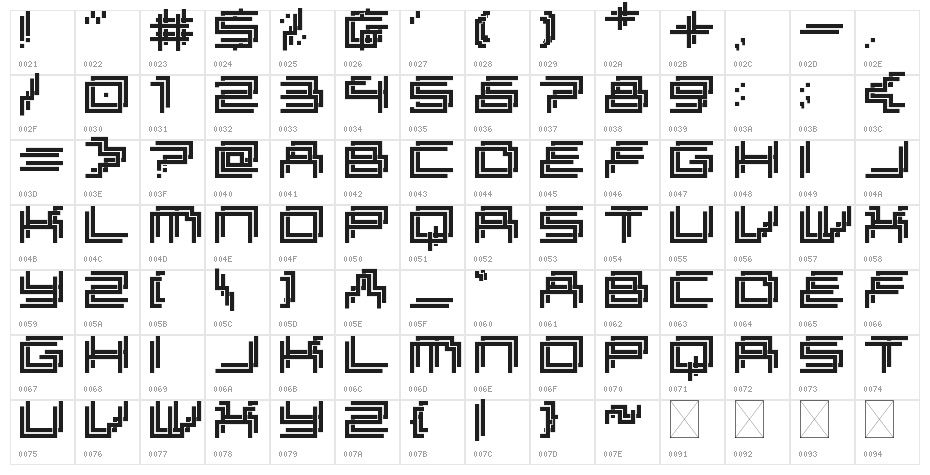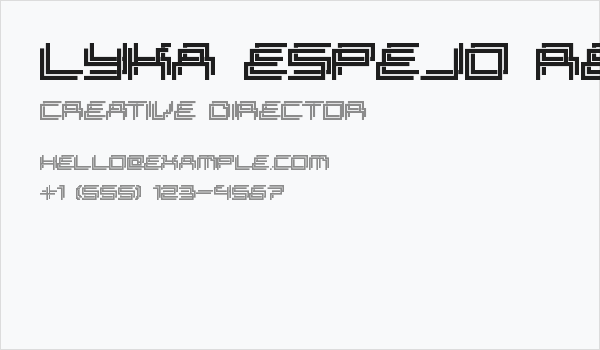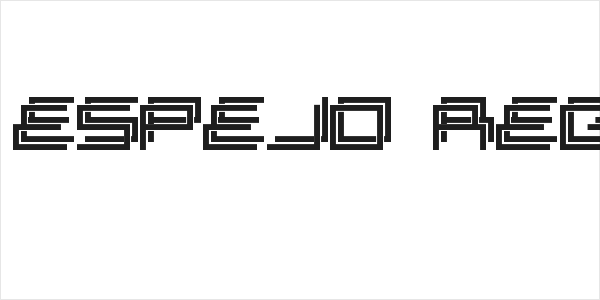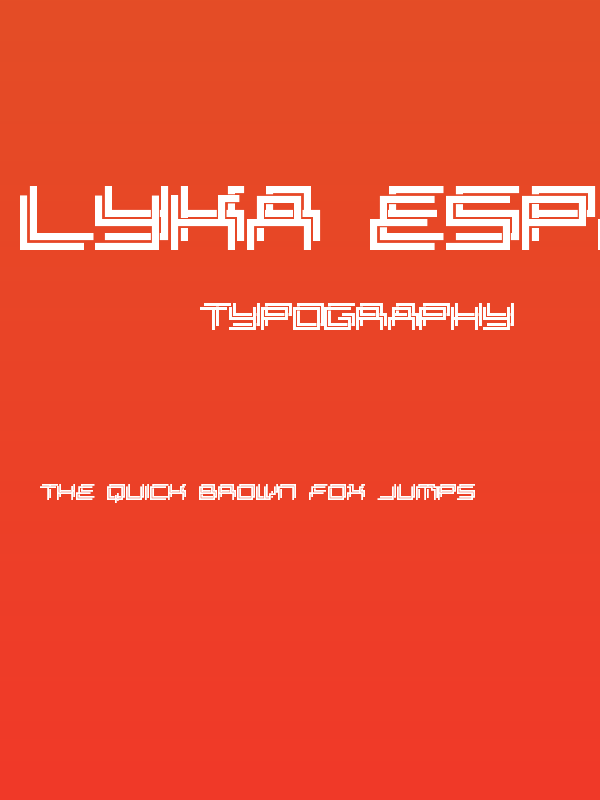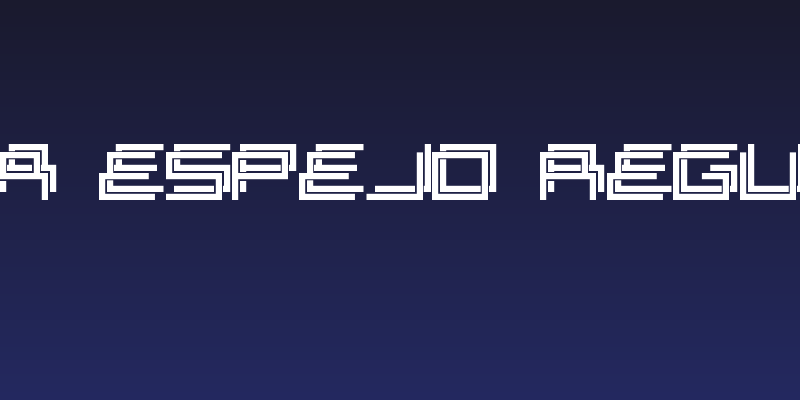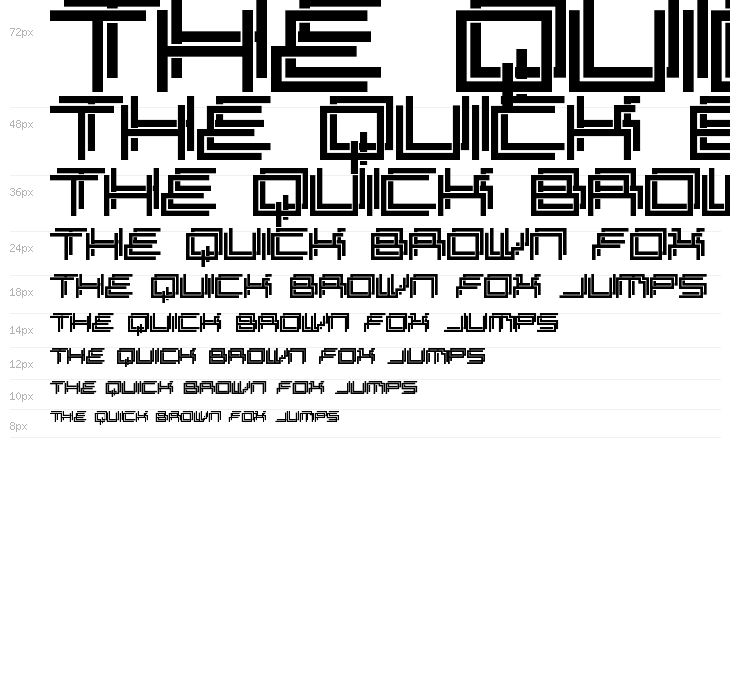
Lyka Espejo Regular Font
Lyka Espejo Regular Description
This font features a geometric and futuristic design, characterized by its blocky and pixelated appearance. Each character is constructed with a series of straight lines and right angles, giving it a digital, almost retro video game aesthetic. The uppercase and lowercase letters maintain a consistent height, contributing to a uniform look across the text. Numbers and special characters follow the same design principles, ensuring visual coherence. The font's unique style makes it stand out, ideal for projects that require a modern and tech-savvy feel.
| Use Case | Logos, Headlines, Digital interfaces |
| Proposed Projects | Ideal for video game design, tech branding, digital art projects, and modern posters. |